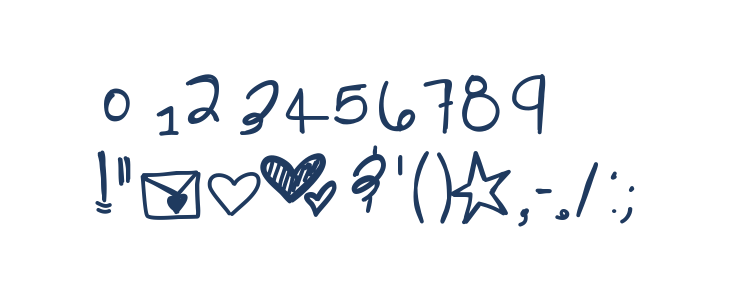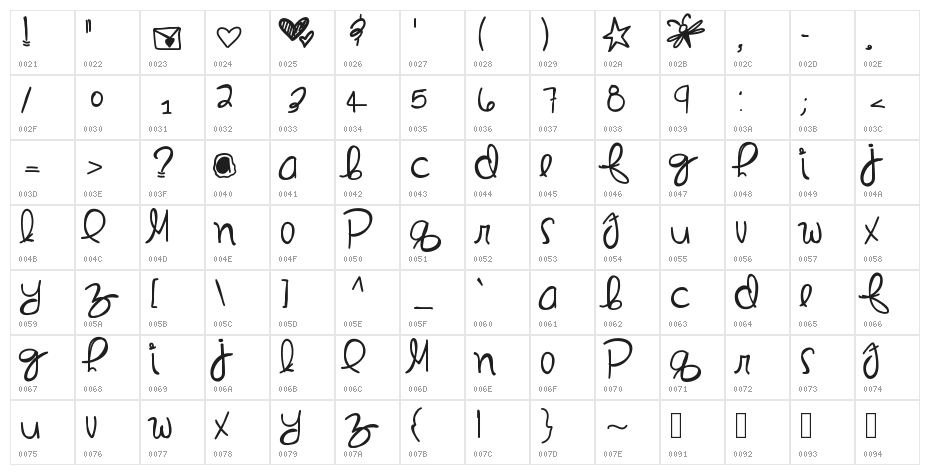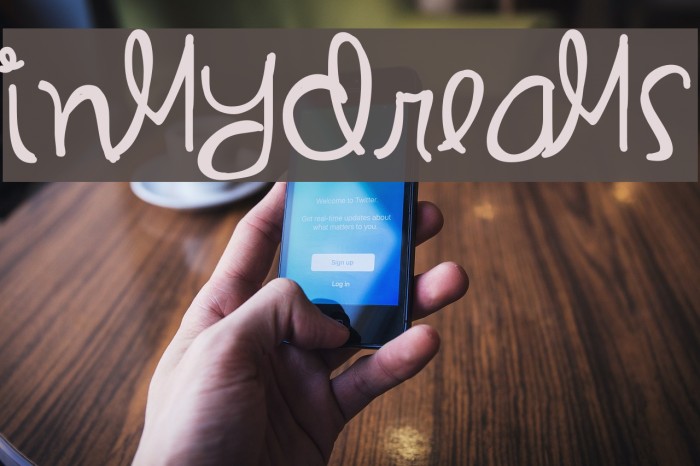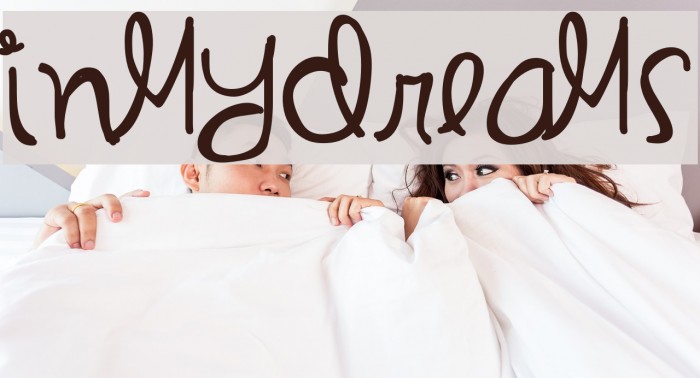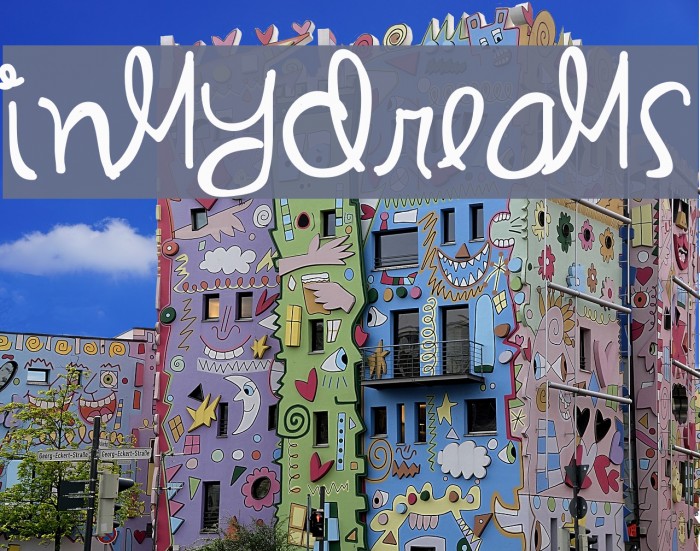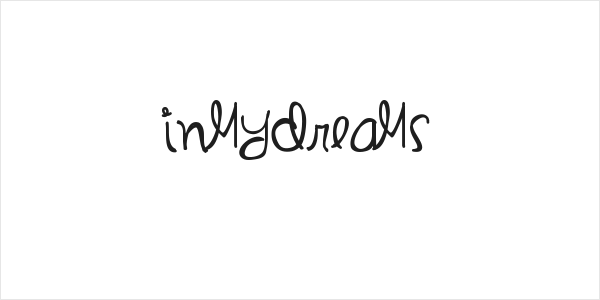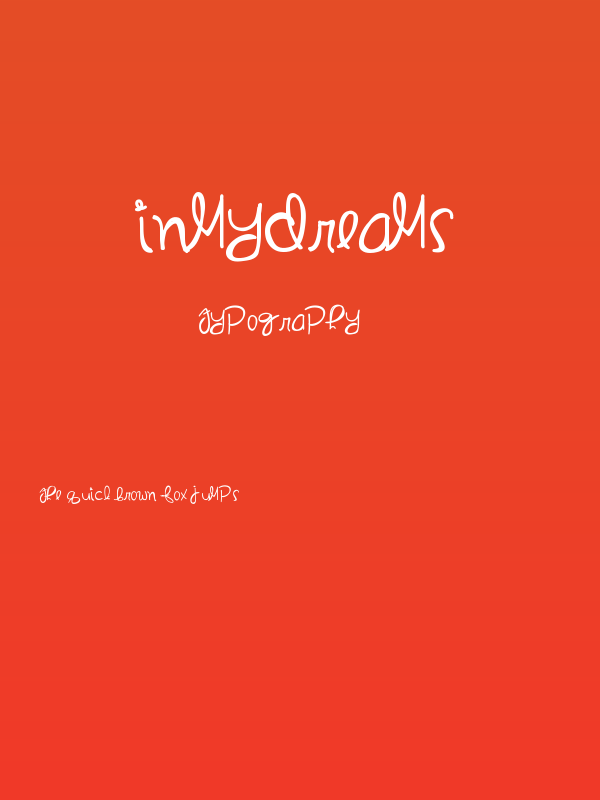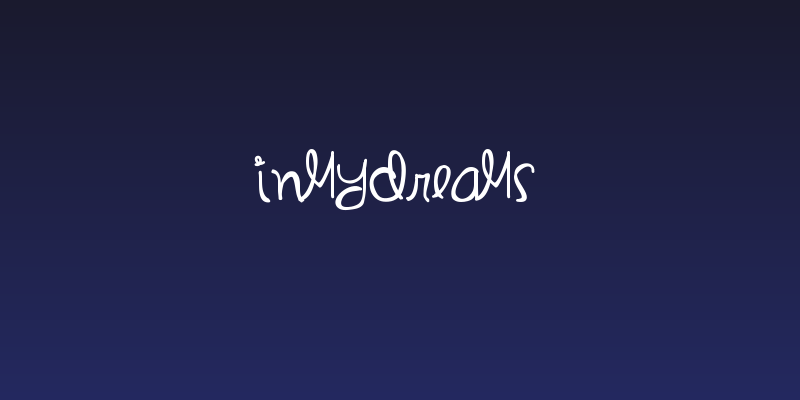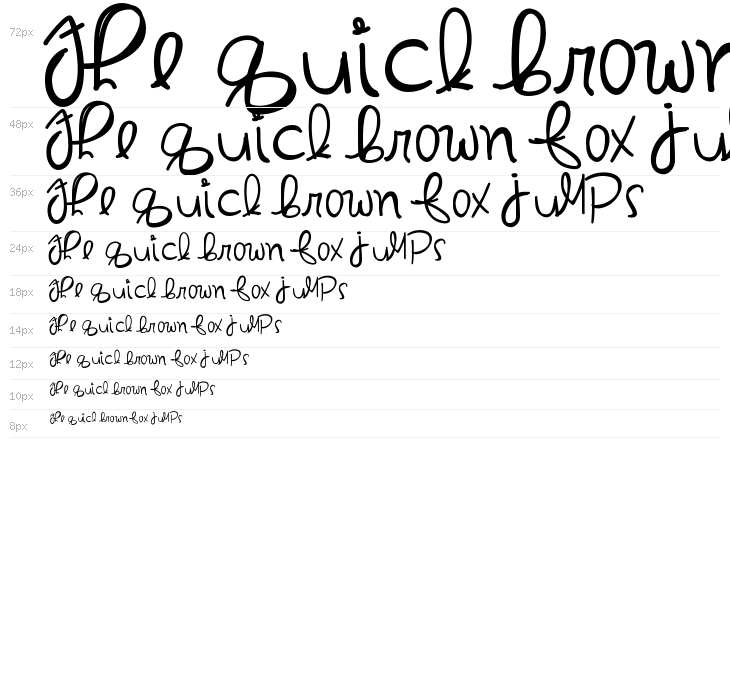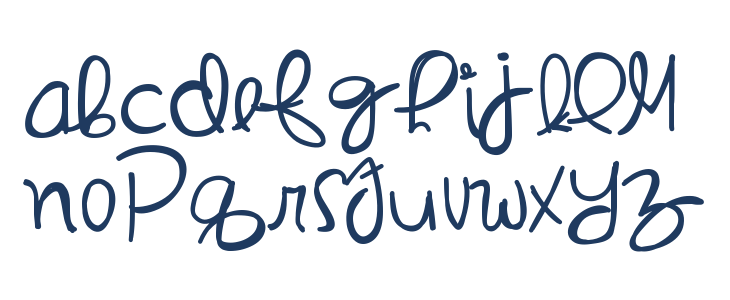
InMyDreams Font
InMyDreams Description
This font features a playful and whimsical handwritten style, characterized by its fluid and looping letterforms. The characters exhibit a casual and informal aesthetic, with varying stroke widths that add to its dynamic appearance. The uppercase and lowercase letters maintain a consistent style, with some letters featuring unique flourishes and embellishments. The numerals and special characters complement the overall design, enhancing its versatility. This font is ideal for projects that require a personal and creative touch, such as invitations, greeting cards, and artistic branding.
| Use Case | Headlines, Artistic branding, Invitations |
| Proposed Projects | Ideal for invitations, greeting cards, artistic branding, and creative projects. |